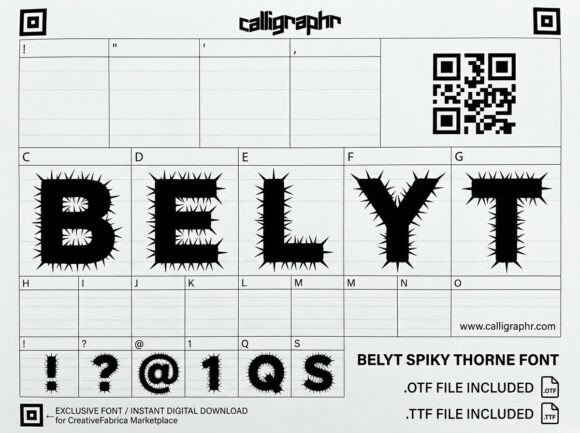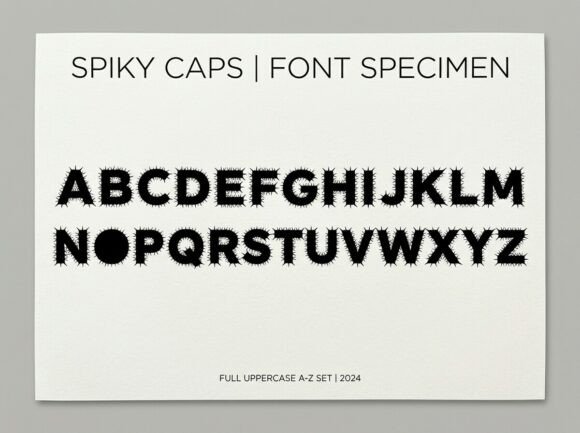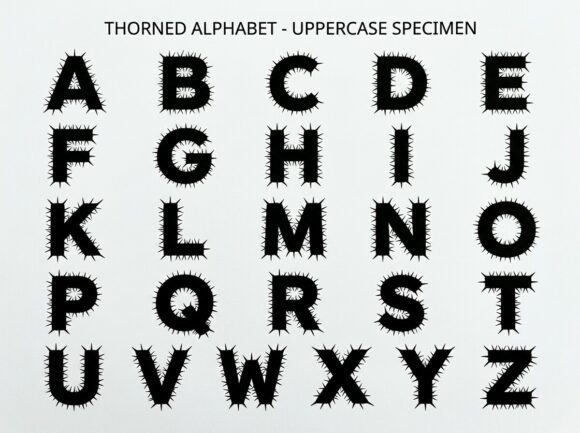
Introducing Belyt Font: Elevate Your Creative Projects with a Unique Display Font
Are you tired of using the same old fonts for your creative projects? Do you want to make a statement and stand out from the crowd? Look no further than Belyt Font, a decorative display font designed to be the centerpiece of any layout. With its distinct artistic elements and strong character, Belyt Font is perfect for creators who want to break away from the ordinary and add a touch of elegance to their work.
What Makes Belyt Font Special?
Belyt Font is a one-of-a-kind display typeface that is designed to deliver a high-end, professional aesthetic without compromising on personality. Its unique artistic elements and strong character make it perfect for a variety of creative projects, from bold headlines to creative branding and packaging. Whether you’re a designer, craftsperson, or DIY enthusiast, Belyt Font is the perfect choice for anyone looking to add a touch of sophistication to their work.
Key Features of Belyt Font
Belyt Font comes with a range of features that make it easy to use and versatile. Here are some of the key features:
- All-Caps Display Typeface: Belyt Font is an all-caps display typeface, which means it does not contain lowercase letters. This makes it a powerful tool for logos, titles, and decorative initials.
It’s essential to note that Belyt Font is an all-caps display typeface, which means it’s designed specifically for use in titles, headings, and other display text. By design, it does not contain lowercase letters, making it perfect for creating bold and eye-catching text.
Uses for Belyt Font
Belyt Font is a versatile font that can be used for a wide range of creative projects, including:
- Branding and Packaging: Use Belyt Font to create bold and eye-catching packaging and branding materials that will help your product stand out on store shelves.
- Headlines and Titles: Use Belyt Font to create bold and attention-grabbing headlines and titles for your website, blog, or social media channels.
- Logos and Icons: Use Belyt Font to create unique and eye-catching logos and icons that will help your business or brand stand out.
- Invitations and Stationery: Use Belyt Font to create beautiful and elegant invitations and stationery for special occasions.
Benefits of Using Belyt Font
There are many benefits to using Belyt Font for your creative projects. Here are some of the key advantages:
- Unique and Eye-Catching: Belyt Font is a unique and eye-catching font that will help your creative projects stand out from the crowd.
- High-End Aesthetic: Belyt Font delivers a high-end, professional aesthetic that is perfect for businesses and brands looking to create a sophisticated image.
- Versatile: Belyt Font is a versatile font that can be used for a wide range of creative projects, from branding and packaging to headlines and titles.
In conclusion, Belyt Font is a unique and versatile display font that is perfect for creators who want to break away from the ordinary and add a touch of elegance to their work. With its distinct artistic elements and strong character, Belyt Font is perfect for a wide range of creative projects, from branding and packaging to headlines and titles. Whether you’re a designer, craftsperson, or DIY enthusiast, Belyt Font is the perfect choice for anyone looking to elevate their creative projects and deliver a high-end, professional aesthetic.